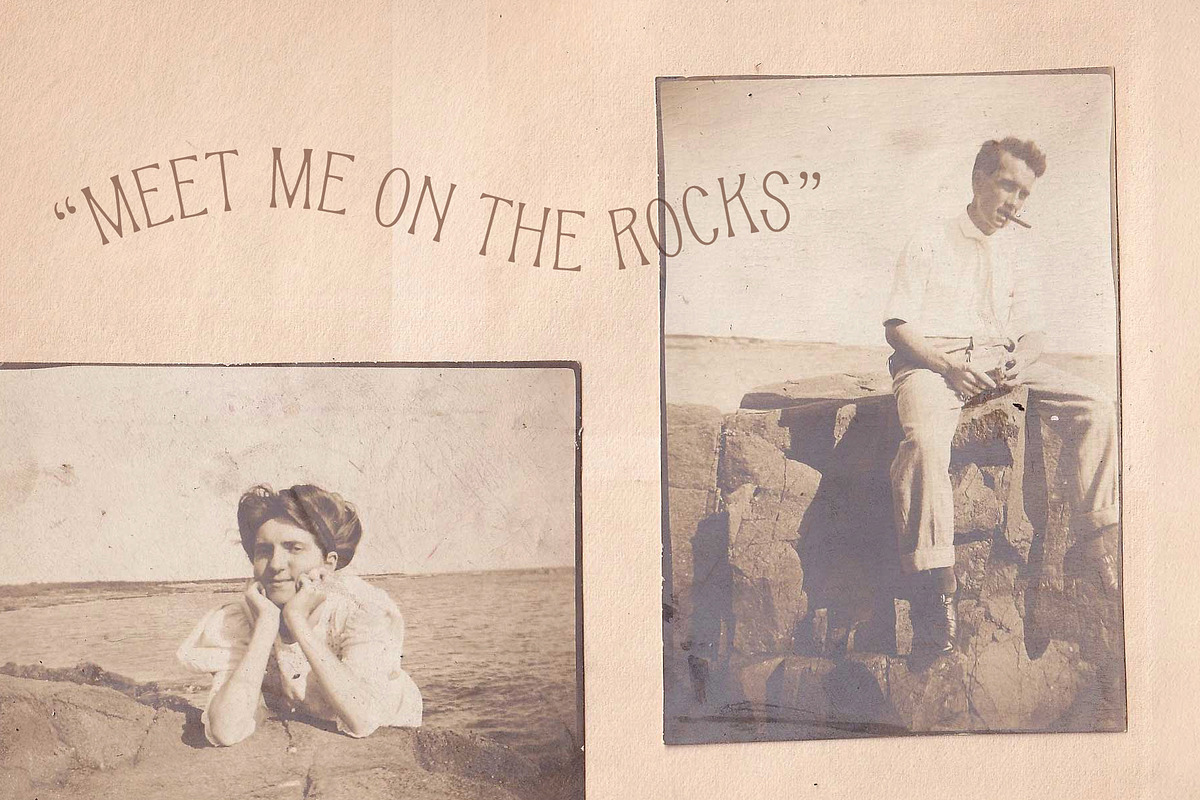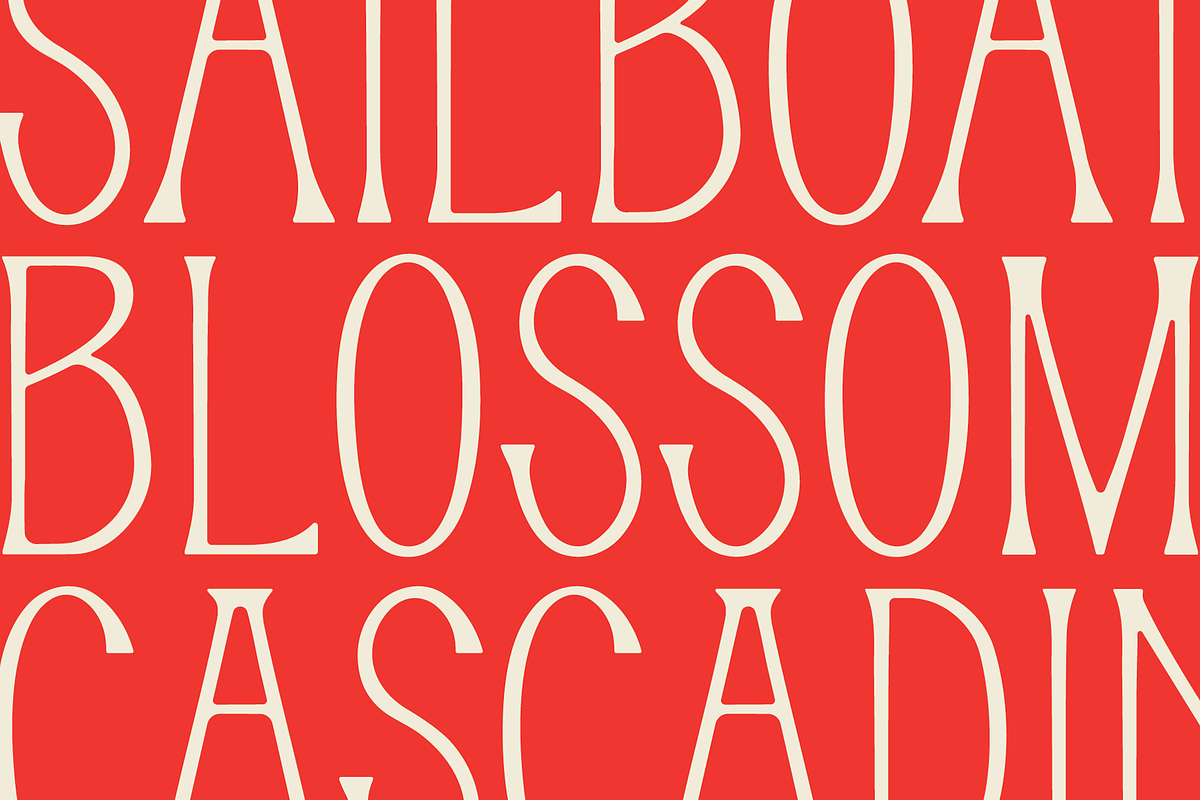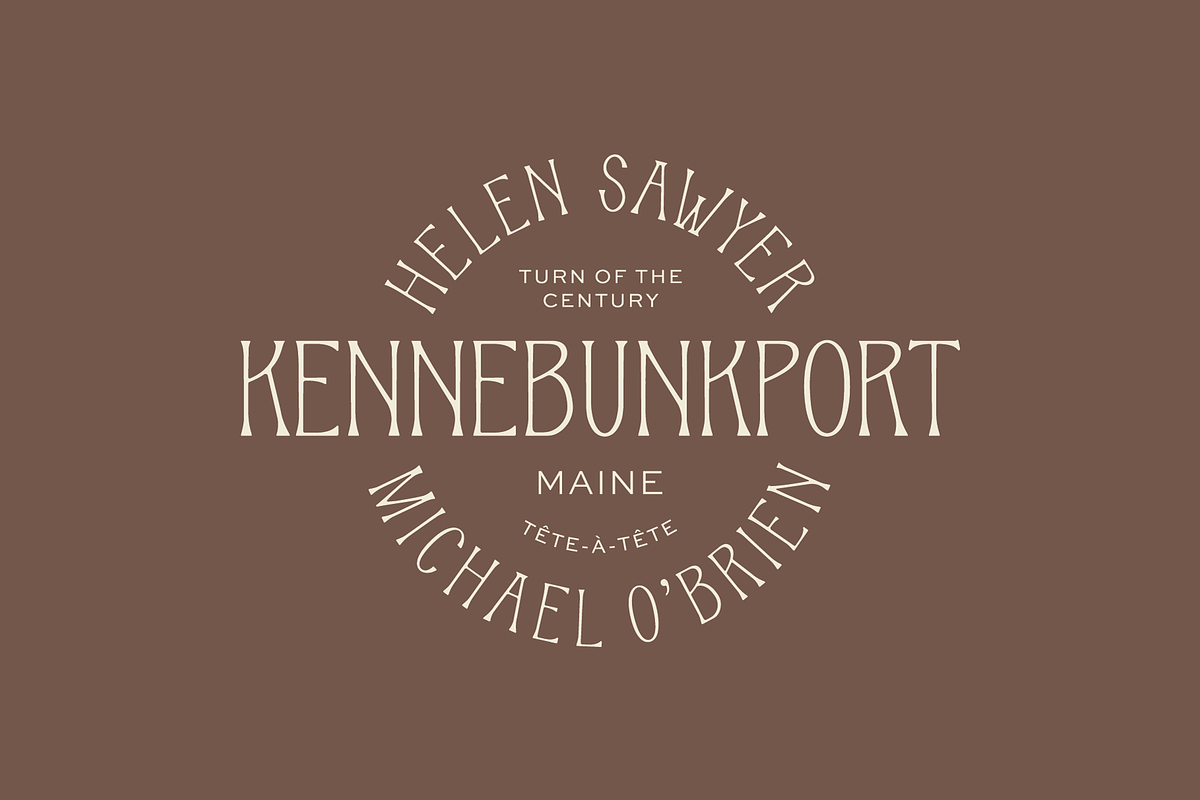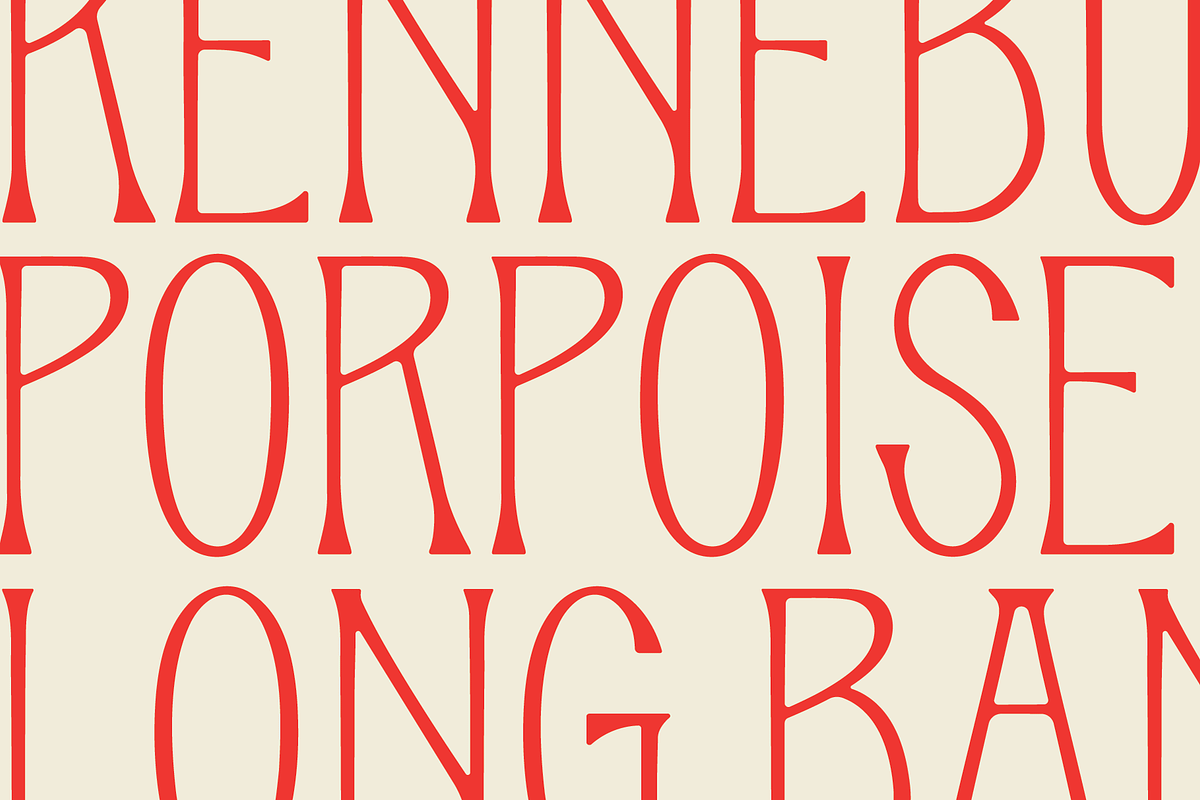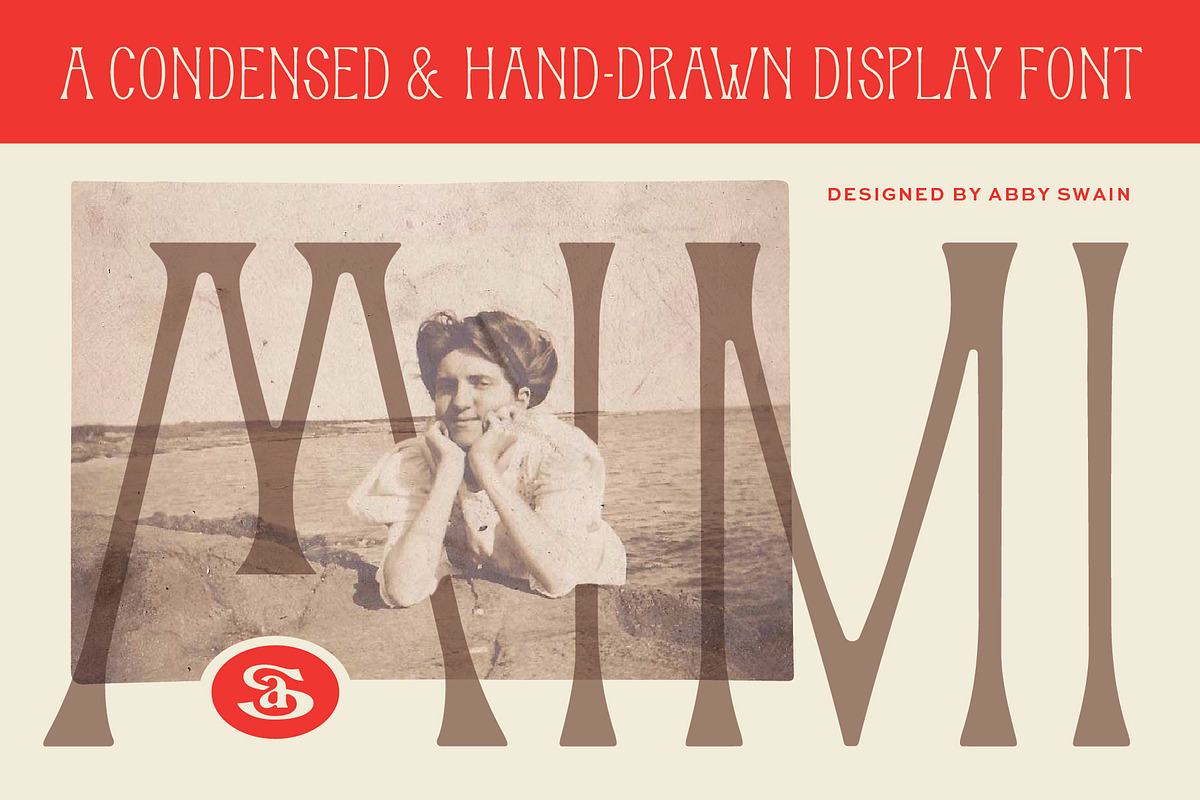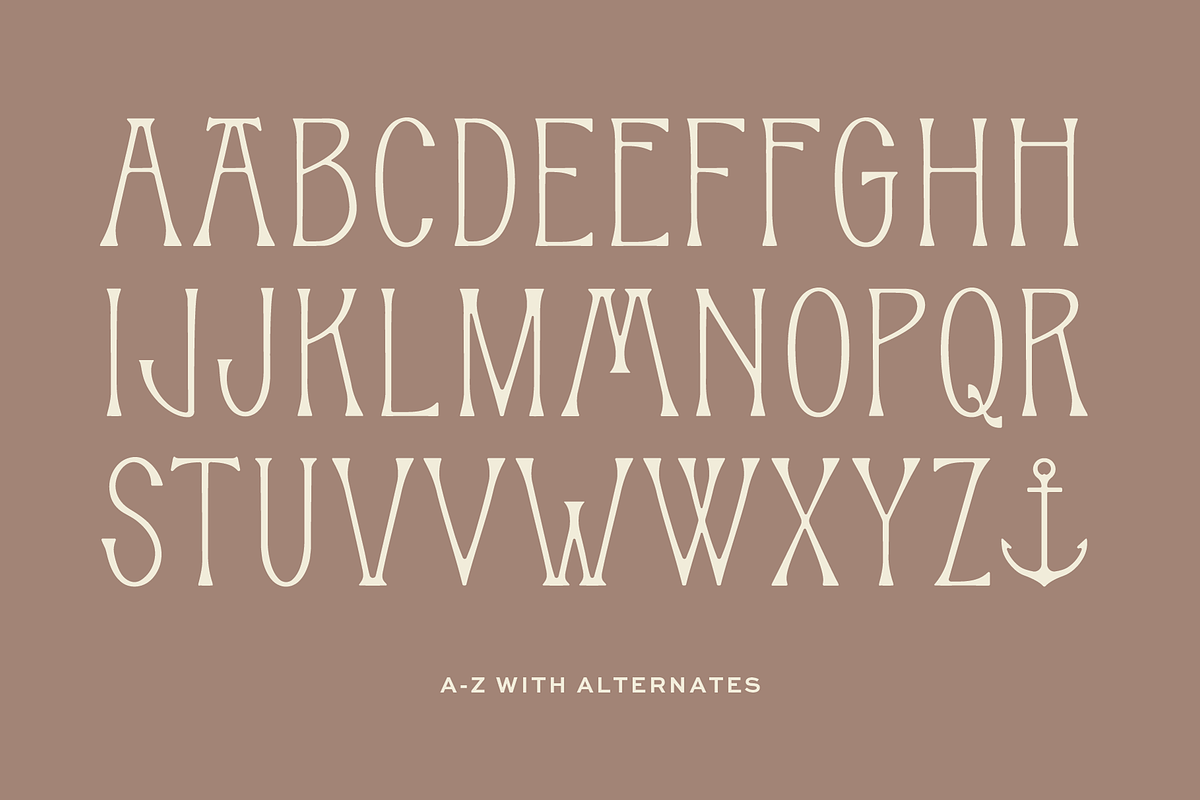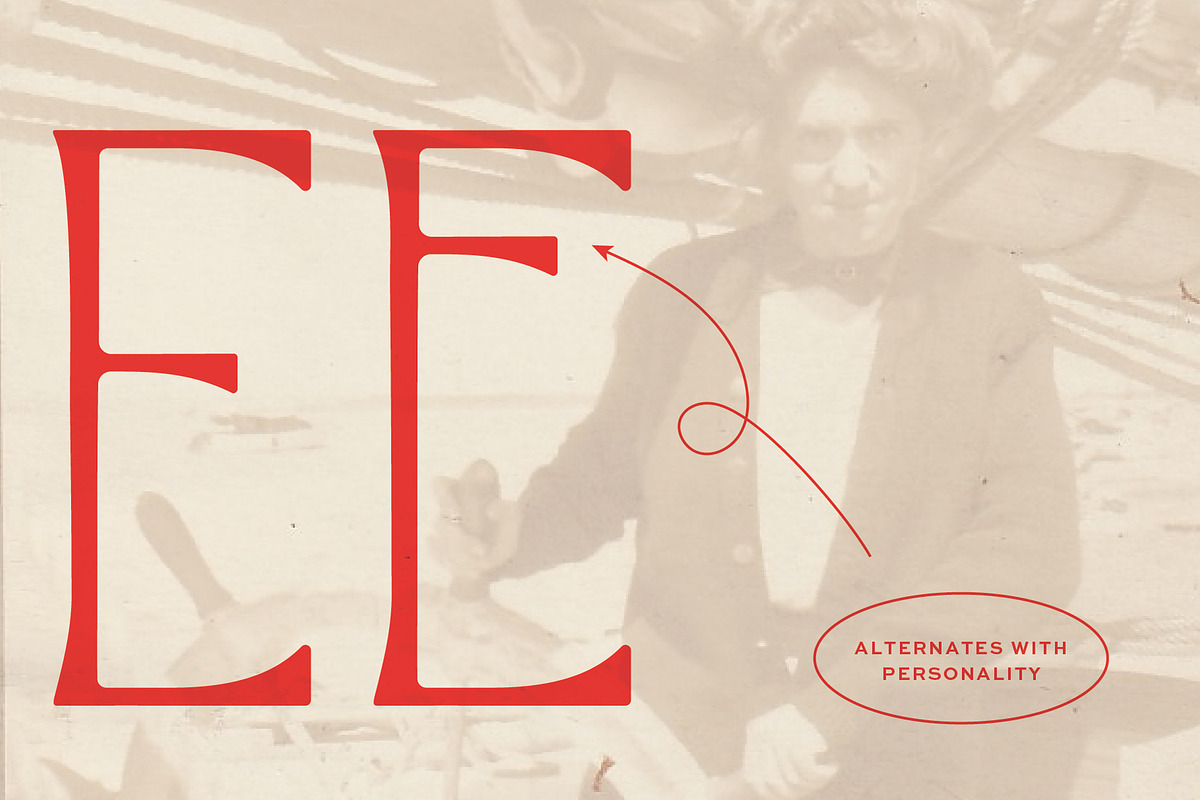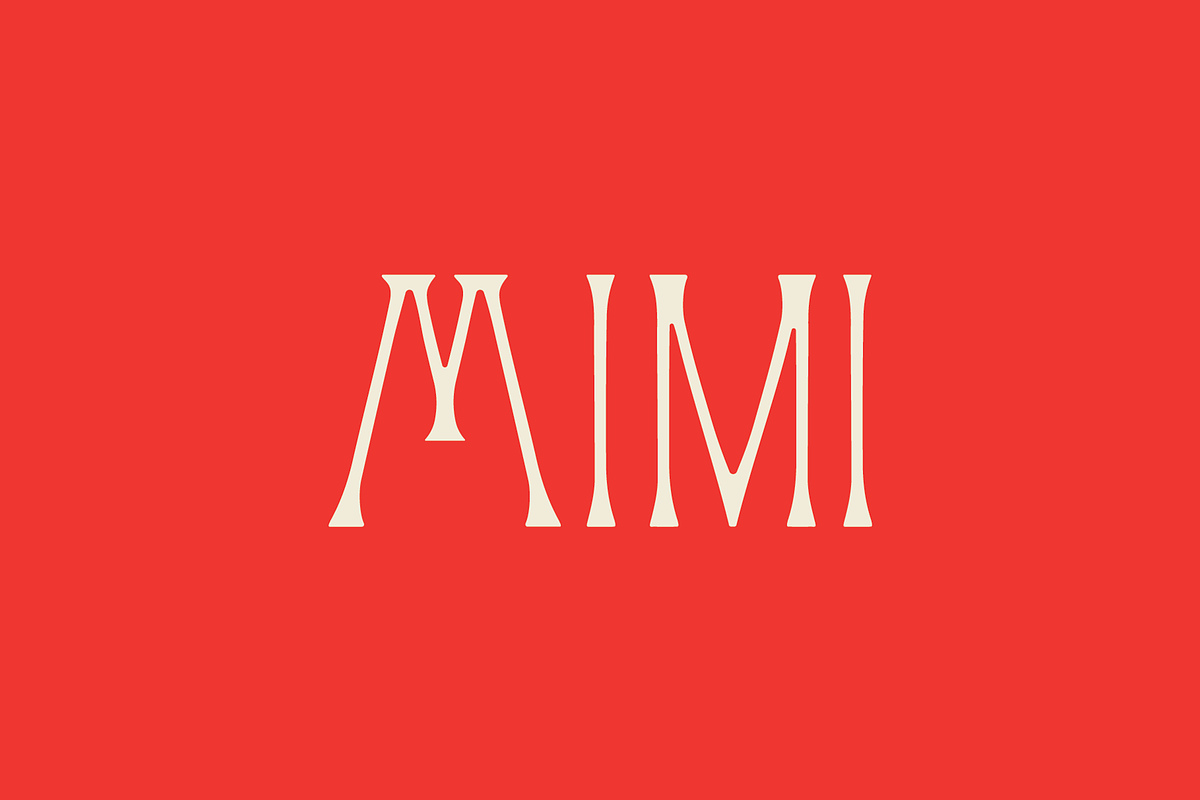
Mimi
Introducing Mimi — a hand-drawn serif display font inspired by my great-grandmother, Helen Sawyer. Each letter is crafted with love, reflecting Helen’s spirit through my family’s cherished photos.
These photos capture moments of Helen courting her soon-to-be-husband, Michael, with scenes of them sailing or enjoying each other’s company on the rocks. The nautical theme is a tribute to their timeless love story and my way of connecting with my maternal great-grandmother and a place our family will always call home.
Mimi includes capital letters and alternates, numbers, and basic punctuation. Plus a bonus anchor! Vector files are included as well.